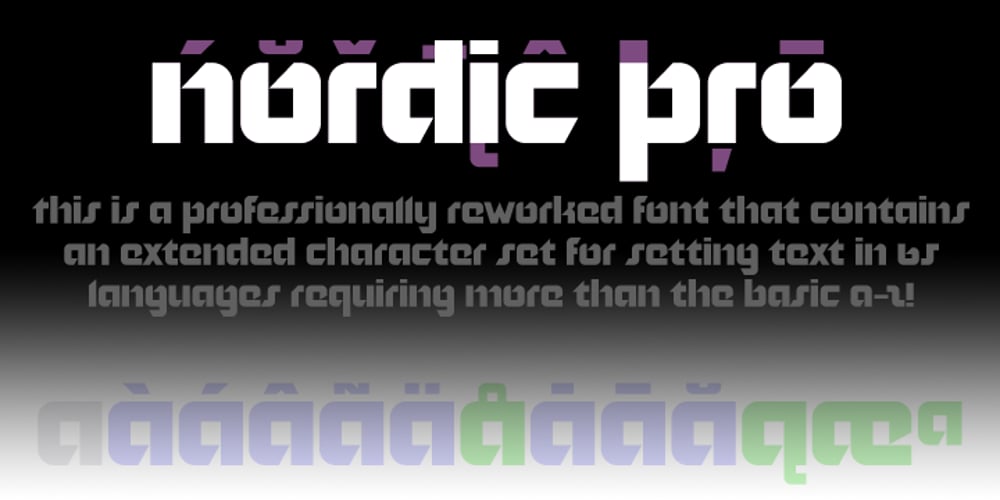
Nordic Pro
Nordic Pro font
Nordic Pro Font Family was designed by Roger S. Nelsson, Levente Halmos and published by CheapProFonts. Nordic Pro contains 1 styles and family package options. A very solid, square and sturdy font, but with some special and quirky details. It is perfect for logos and trademarks – and now supporting many more languages. ALL fonts from CheapProFonts have very extensive language support: They contain some unusual diacritic letters (some of which are contained in the Latin Extended-B Unicode block) supporting: Cornish, Filipino (Tagalog), Guarani, Luxembourgian, Malagasy, Romanian, Ulithian and Welsh. They also contain all glyphs in the Latin Extended-A Unicode block (which among others cover the Central European and Baltic areas) supporting: Afrikaans, Belarusian (Lacinka), Bosnian, Catalan, Chichewa, Croatian, Czech, Dutch, Esperanto, Greenlandic, Hungarian, Kashubian, Kurdish (Kurmanji), Latvian, Lithuanian, Maltese, Maori, Polish, Saami (Inari), Saami (North), Serbian (latin), Slovak(ian), Slovene, Sorbian (Lower), Sorbian (Upper), Turkish and Turkmen. And they of course contain all the usual “western” glyphs supporting: Albanian, Basque, Breton, Chamorro, Danish, Estonian, Faroese, Finnish, French, Frisian, Galican, German, Icelandic, Indonesian, Irish (Gaelic), Italian, Northern Sotho, Norwegian, Occitan, Portuguese, Rhaeto-Romance, Sami (Lule), Sami (South), Scots (Gaelic), Spanish, Swedish, Tswana, Walloon and Yapese.